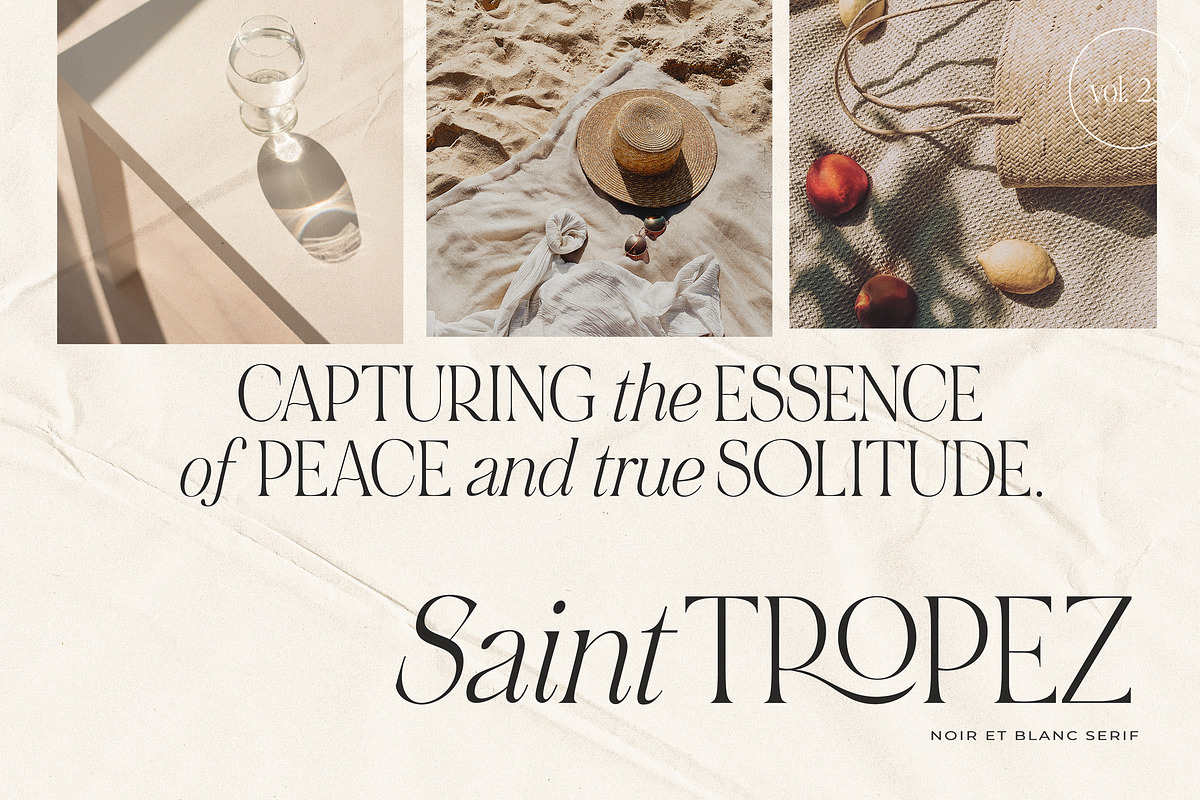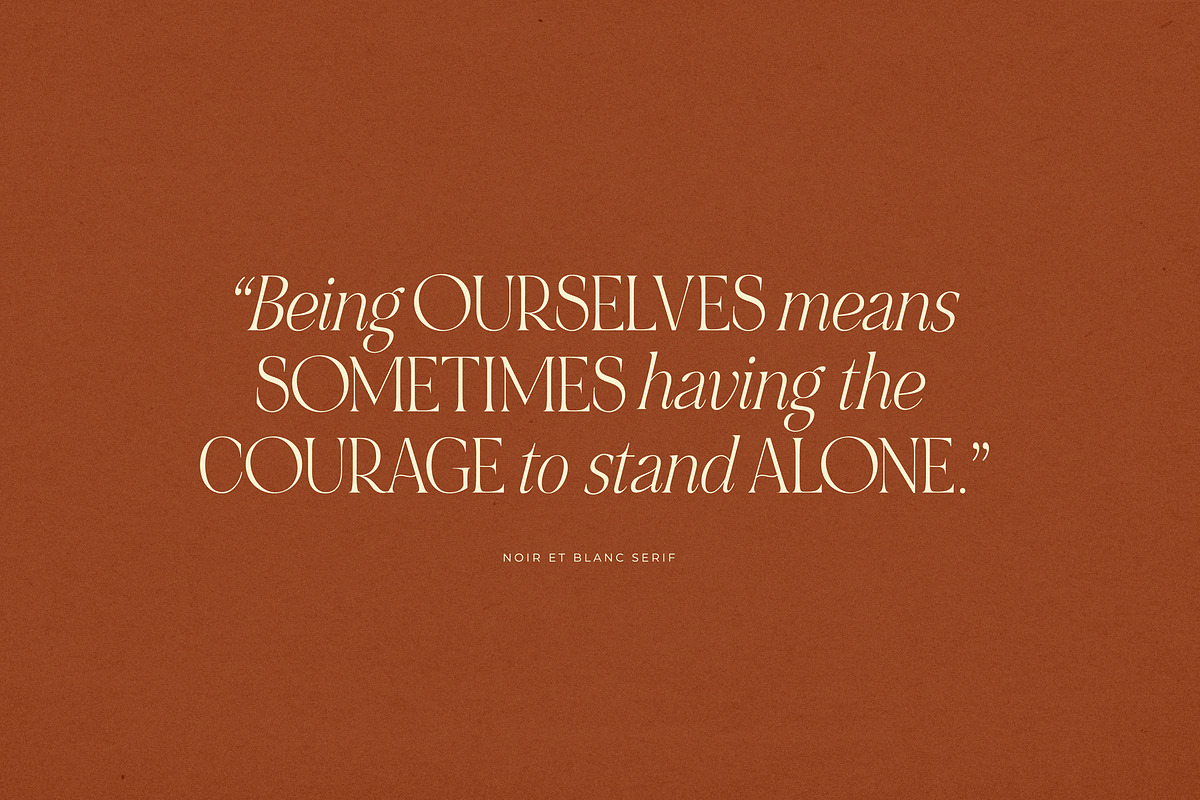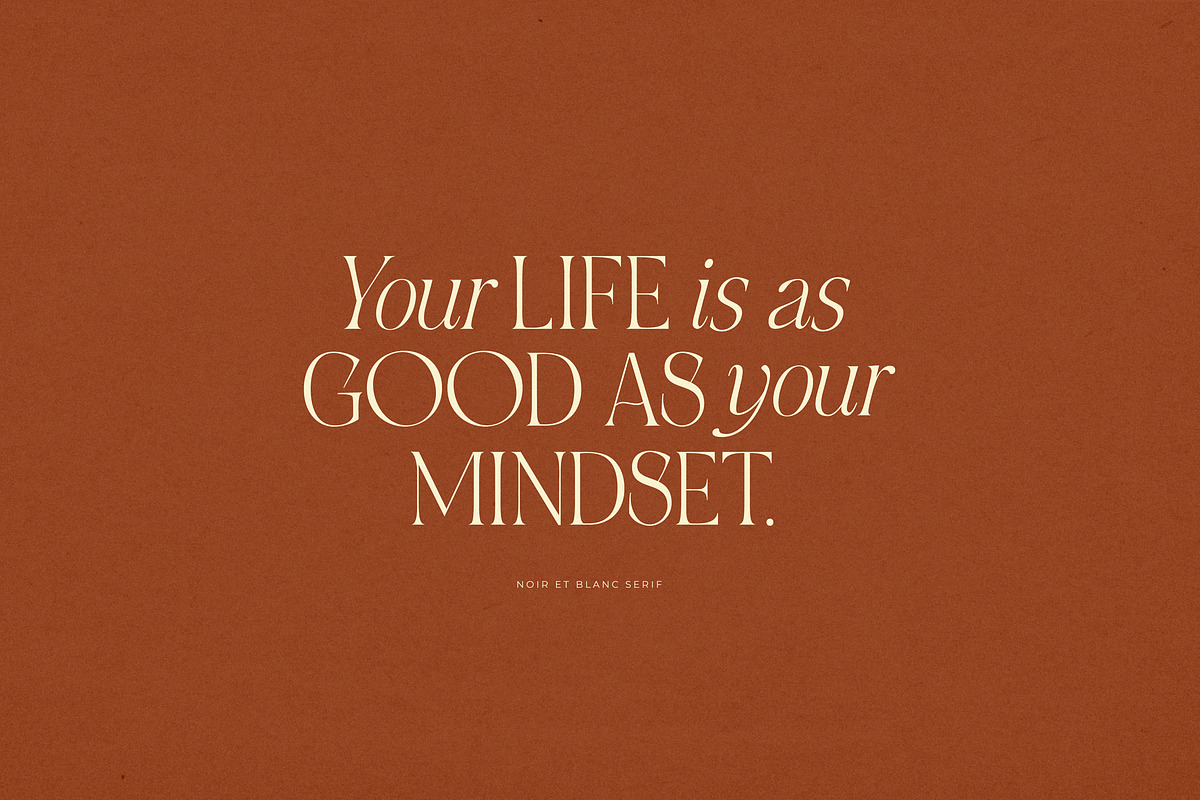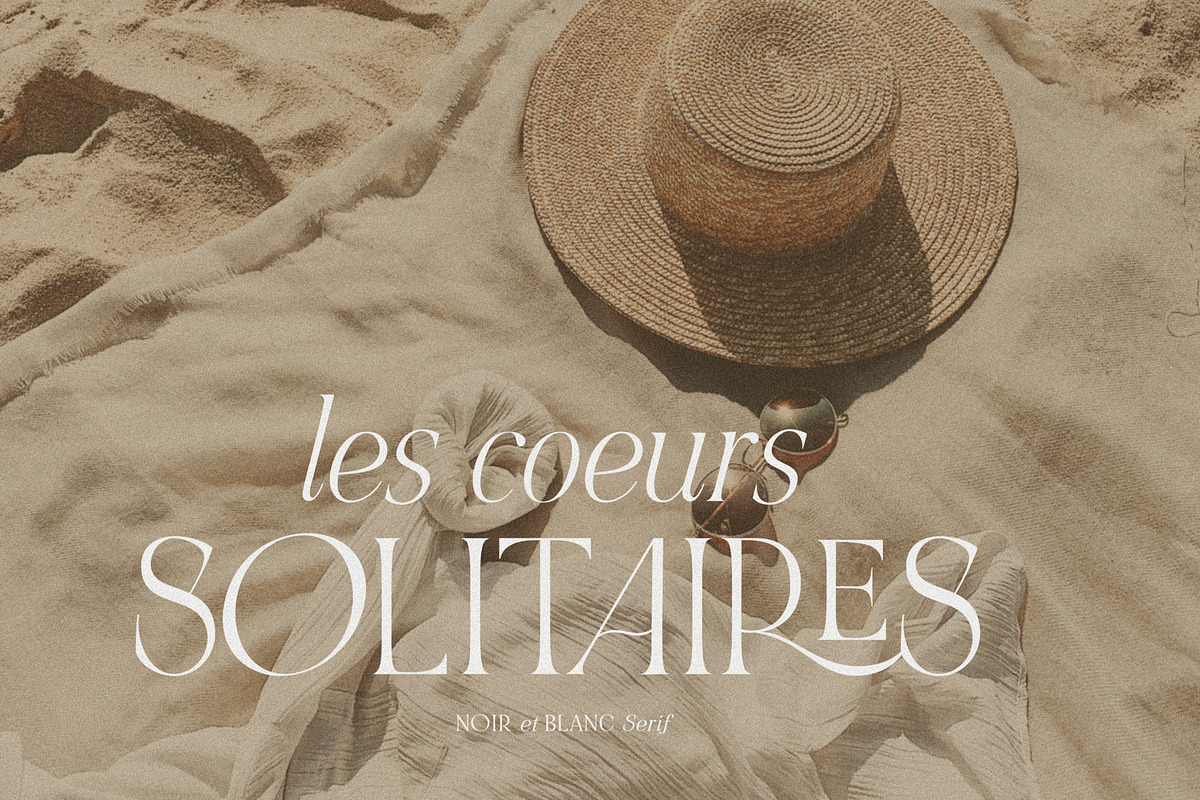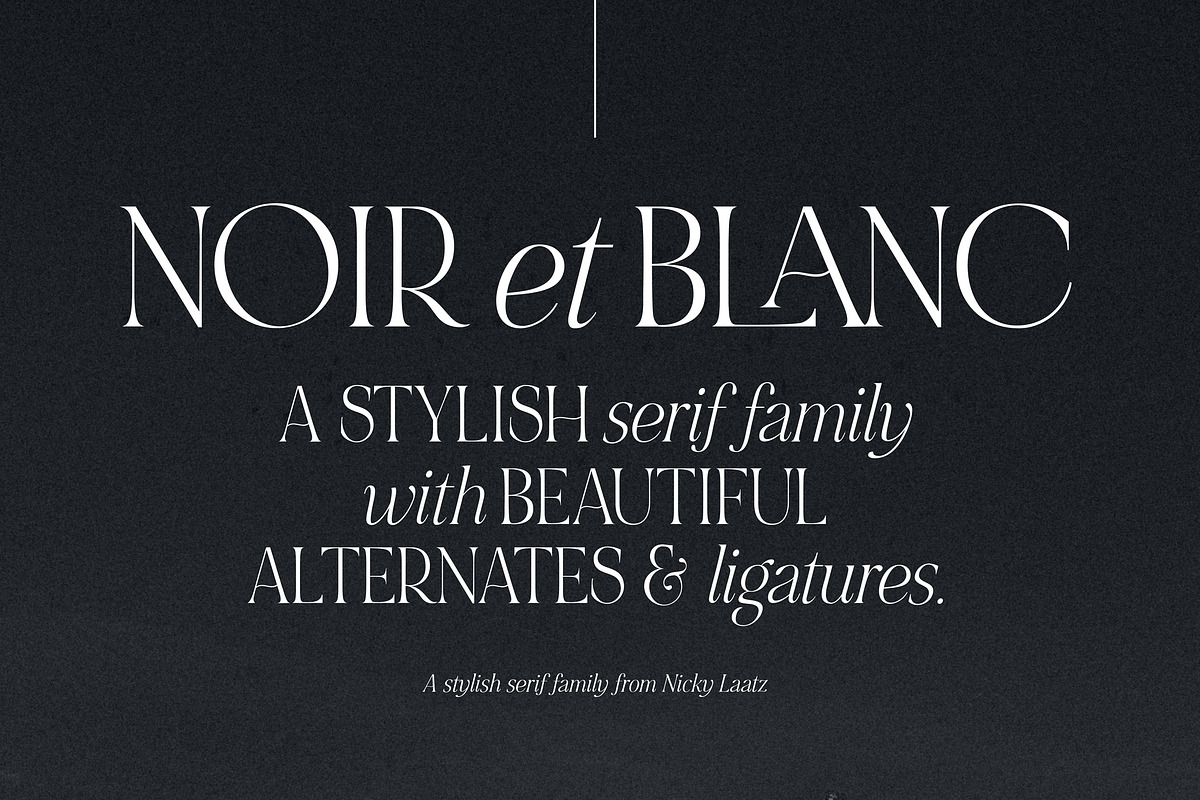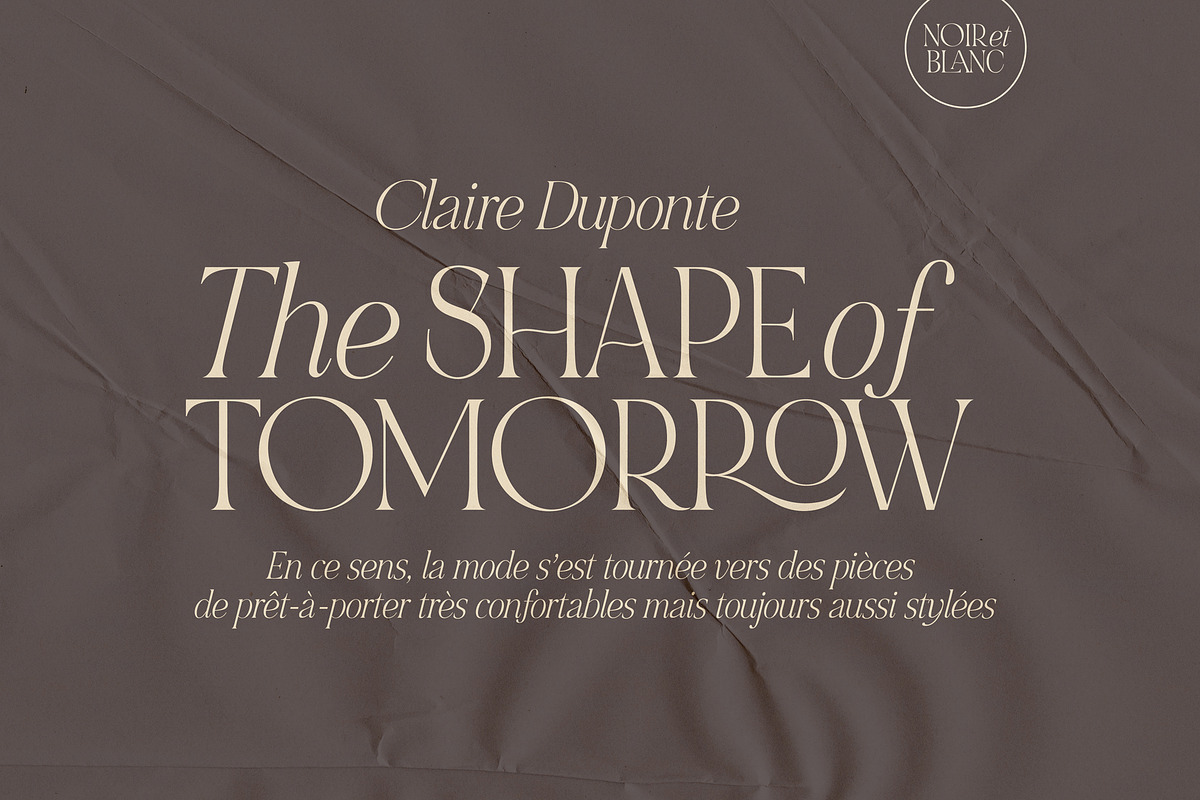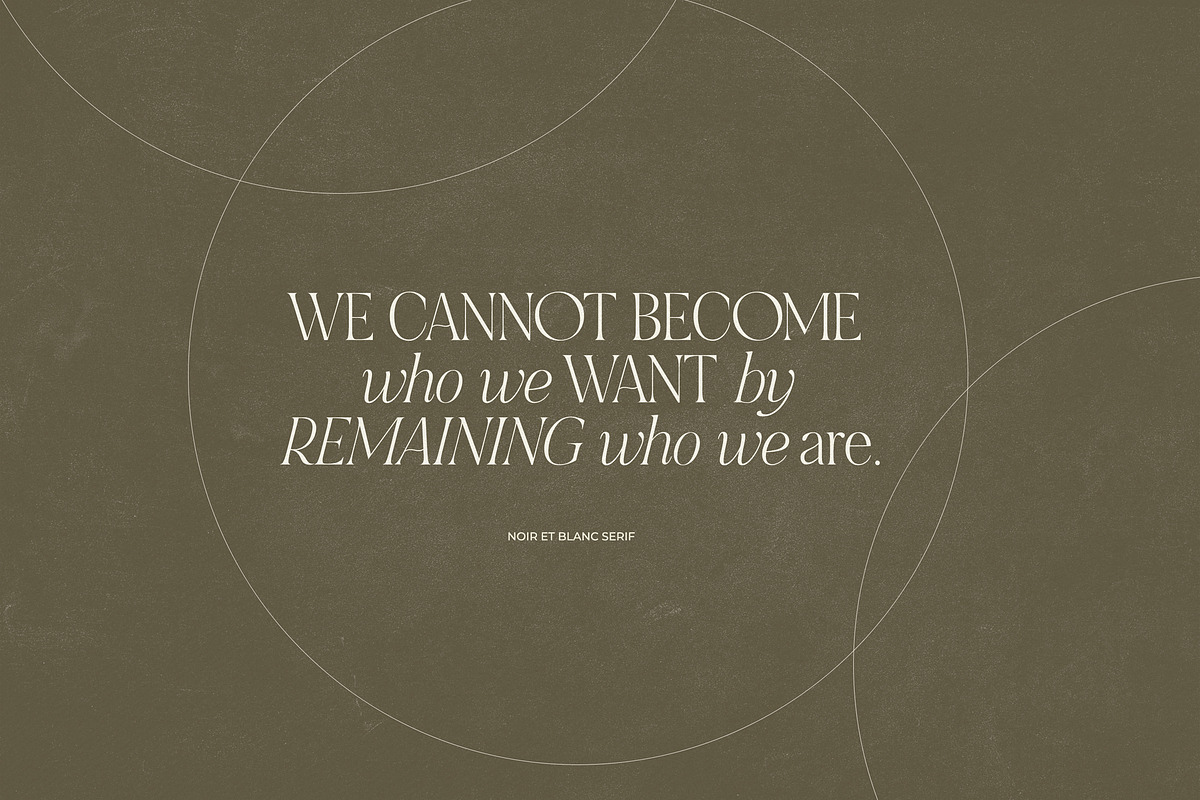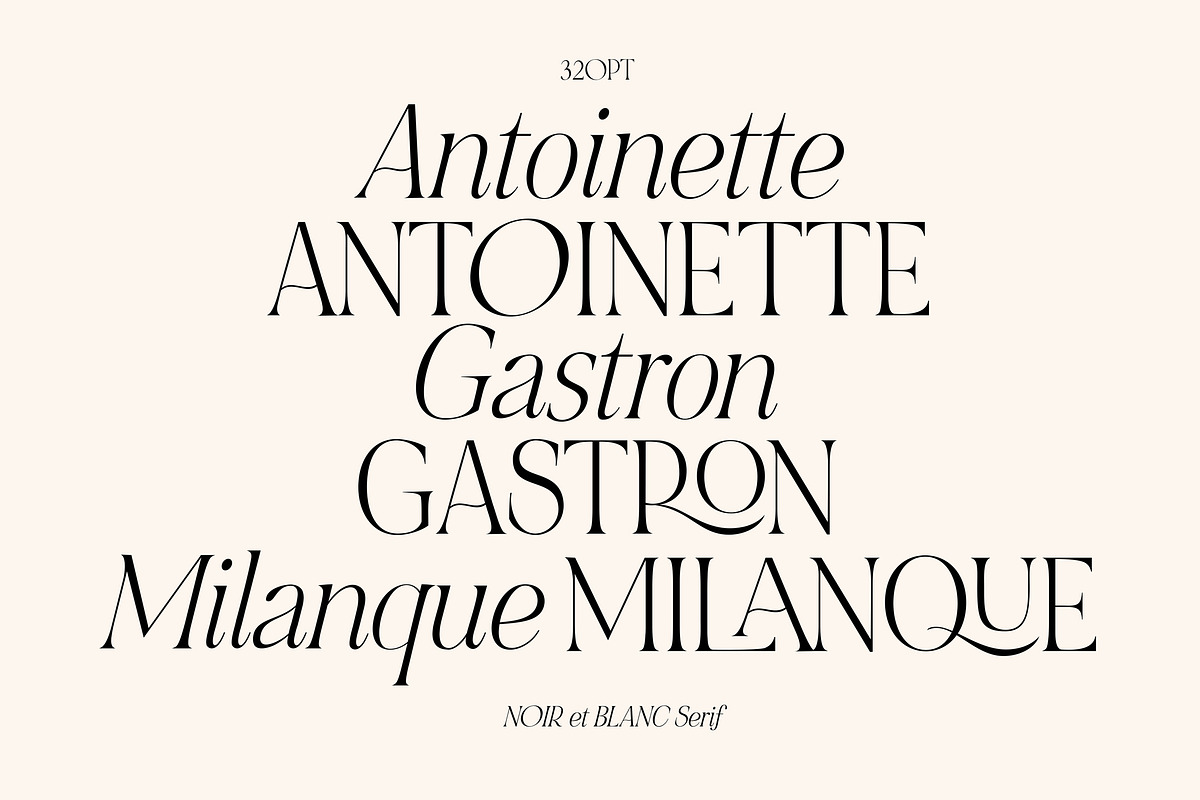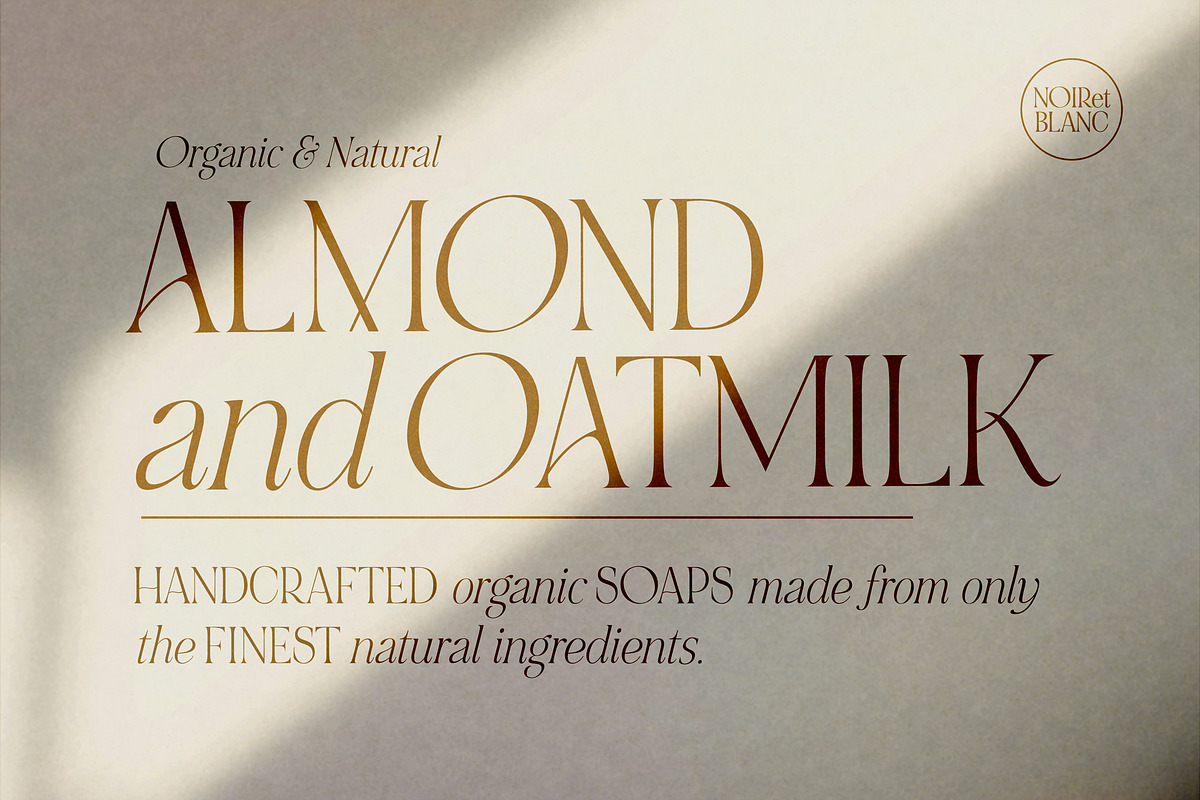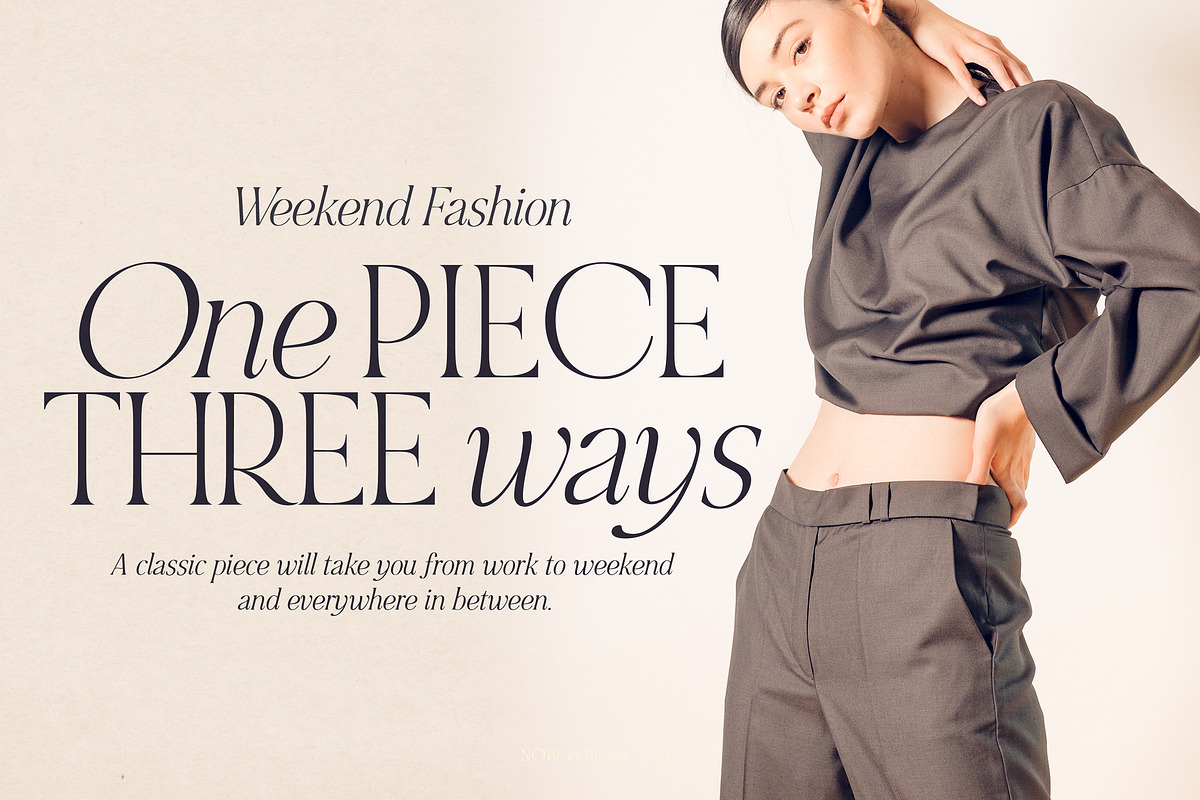
NOIR et BLANC Stylish Serif
As dramatic together as black and white - say hello to "NOIR et BLANC"- a Stylish Serif family with beautiful ligatures and alternates. Designed to use in harmony, the stark contrast of the bold & voluptuous uppercase of the regular serif, balances beautifully with the sleek and sultry lowercase of its Italic counterpart.
Add interest with adding beautiful ligatures and alternates to make your typography truly unique.
NOIR et BLANC comes in 3 lightly varying weights help ensure the type looks good at both large and small sizes, and on both light and dark backgrounds.
Current Language Support : Danish, English, Finnish, French, German, German (Switzerland), Norwegian Bokmål, Norwegian Nynorsk, Portuguese, Spanish, Swedish, Swiss German.